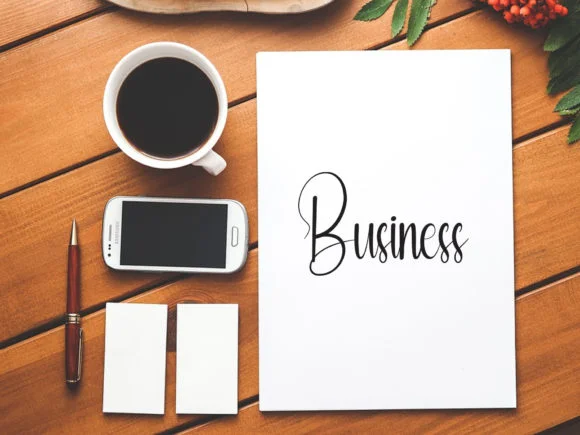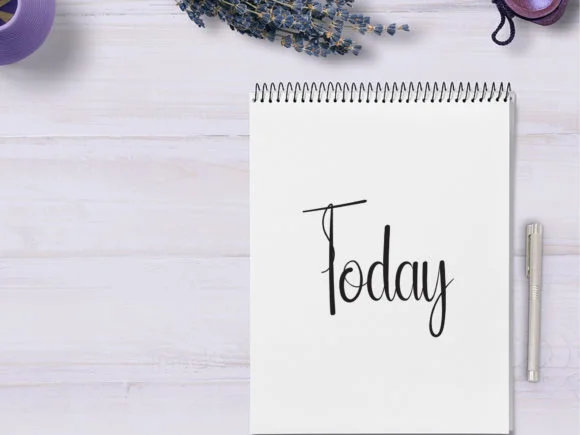
Heart Font adds a playful, romantic touch to your designs. With its flowing script and heart-shaped flourishes, it brings warmth and charm ideal for love notes, greeting cards, or any project that needs a heartfelt vibe.
Designer: Adeindrawan
Released: Early 2010s; popularized on platforms like 1001 Fonts and Creative Fabrica
Style: Handwritten script with heart-shaped embellishments
Elegant script with heart accents
Includes stylistic alternates and ligatures
Great for invitations, branding, and social media posts
Pair Heart Font with a clean sans-serif like Raleway or Open Sans to balance its ornate style. Use it for headlines, logos, or any design that benefits from a touch of romance.